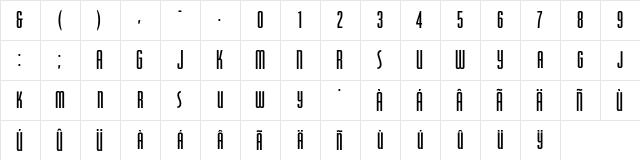
OdeonCondensedAlternate Regular Font Preview
OdeonCondensedAlternate Regular
OdeonCondensedAlternate Regular Font Details
Design Context for OdeonCondensedAlternate Typeface
OdeonCondensedAlternate is a composed and adaptable typeface that performs quietly and consistently across a wide range of design contexts. The condensed width makes it efficient for tight spaces without sacrificing legibility.